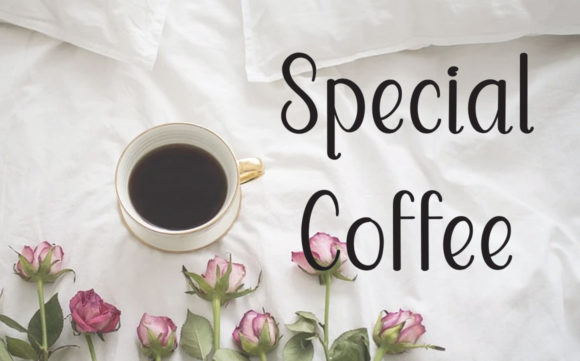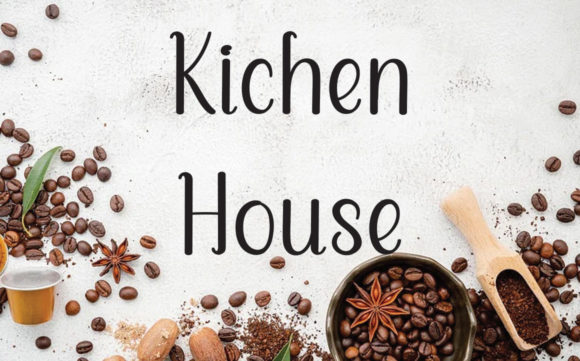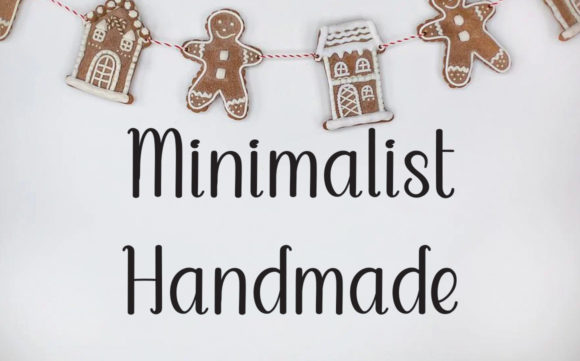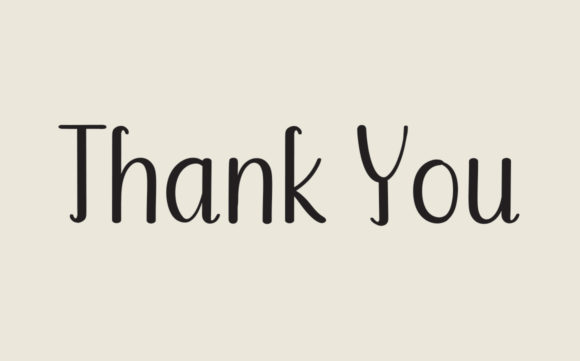
Simple Handmade Font
About Simple Handmade Font
Simple Handmade is a captivating and fluid handwritten font that adds a touch of beauty to a diverse range of design projects. Its simplicity and elegance make it a versatile choice for various applications, including wall displays, wedding invitations, logos for social media posts, attention-grabbing advertisements, product packaging that demands a second look, innovative product designs, labels that stand out, professional photography with a personal touch, subtle watermarks that enhance your brand, invitations that leave a lasting impression, and stationery that exudes style.
Whether you are creating a visually appealing wall display, setting the tone for a romantic wedding invitation, establishing a distinctive brand identity with a unique logo on social media, or designing impactful advertisements, Simple Handmade’s graceful and flowing design ensures that your content is visually impressive.
In the realm of product packaging and design, this font adds a layer of sophistication and simplicity, making your products visually appealing and memorable. Its versatility shines through in label designs, contributing to the overall visual identity of your products. Simple Handmade seamlessly integrates into various design contexts, making it a valuable asset for photographers seeking a font that complements their work and adds a personal touch to watermarks.
Whether you’re working on physical or digital materials, Simple Handmade is a reliable choice. It’s perfect for creating invitations for a wide range of events and designing engaging social media posts that captivate your audience. This font ensures a polished and visually appealing presentation across different platforms.
In conclusion, Simple Handmade’s beauty and simplicity make it an excellent choice for projects that require impressive and charming typography. Its handwritten style adds a unique and personal touch to a variety of design endeavors, making it a valuable tool for creative professionals in different fields.